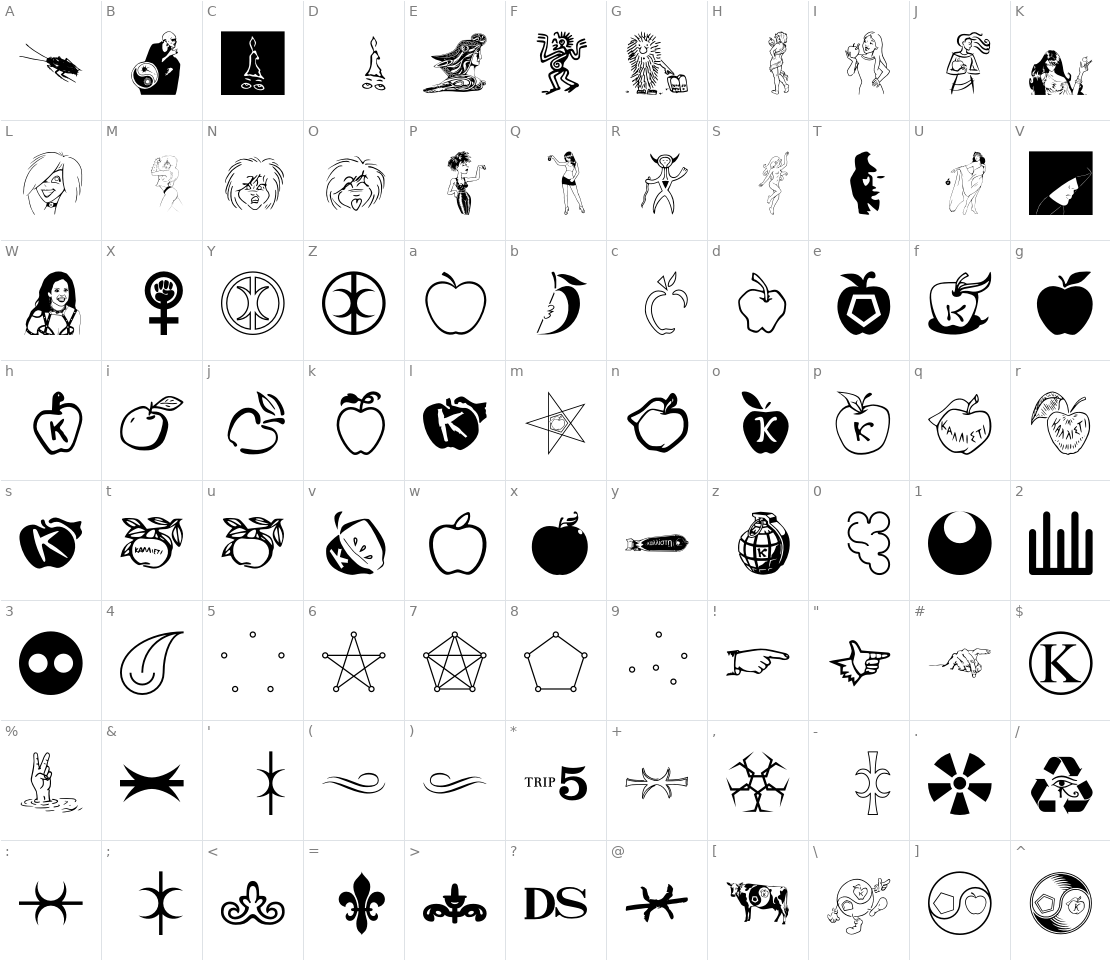
Fnord Hodge + Podge
Fnord Hodge + Podge is a novelty symbol font assembled by a collective of designers including Toa, Synaptyx, and Nurbldoff, featuring a set of fruit and nature-themed icons with a handmade, clipart-like quality. The characters lean decorative and illustrative rather than typographic, making it useful for spot illustrations, bullet points, or adding small visual accents to menus, packaging, and nature-themed layouts. Not a text face by any stretch, but a fun grab bag of little pictorial elements.